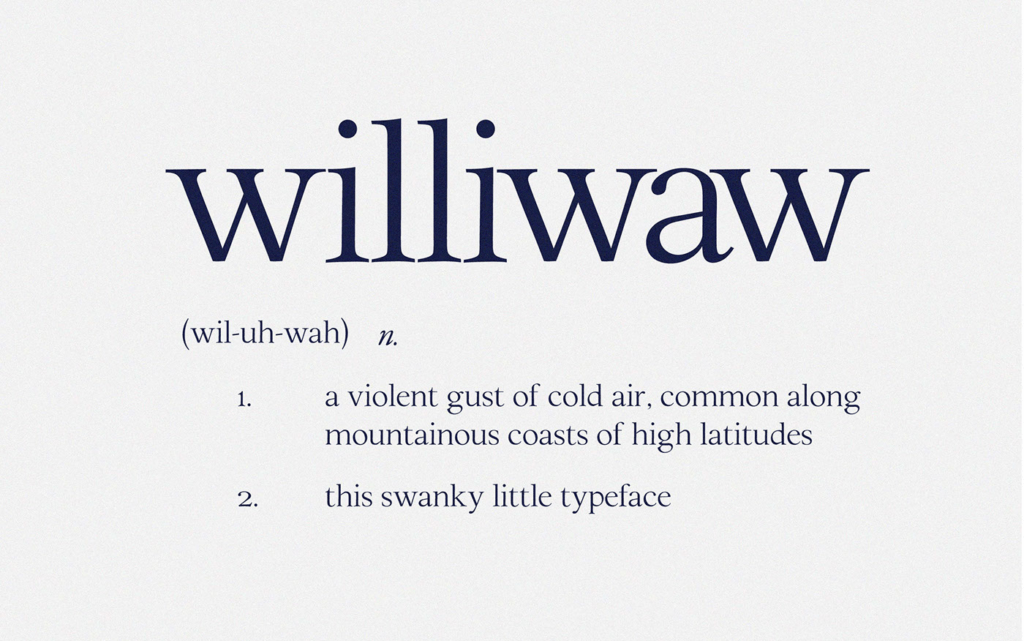
Williwaw Book Typeface Font
Introducing WilliwawBook Typeface! It is designed and shared by Stephen French. Williwaw Book typeface is typography inspired by serif & sportivo style.
The letters of Williwaw Book include one uppercase and lowercase letters as well as multi language support and currency, numbers, punctuation, alternatives, ligatures and some additional glyphs.
This font has a thickness of that font very nice so it looks more elegant and this font is very suitable made as logotype, header, product packaging, poster, branding design, and more.